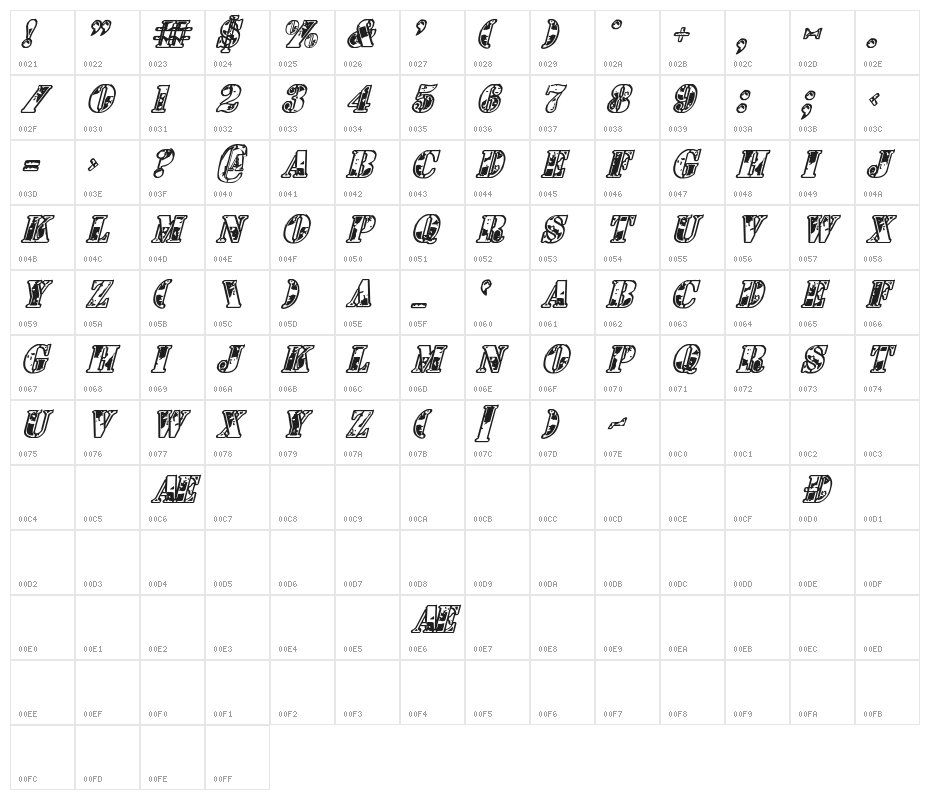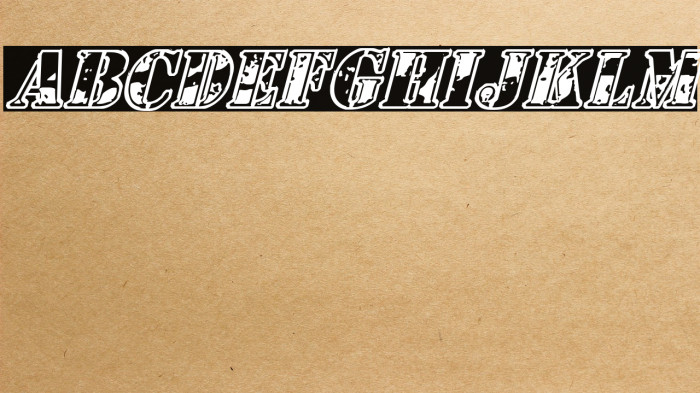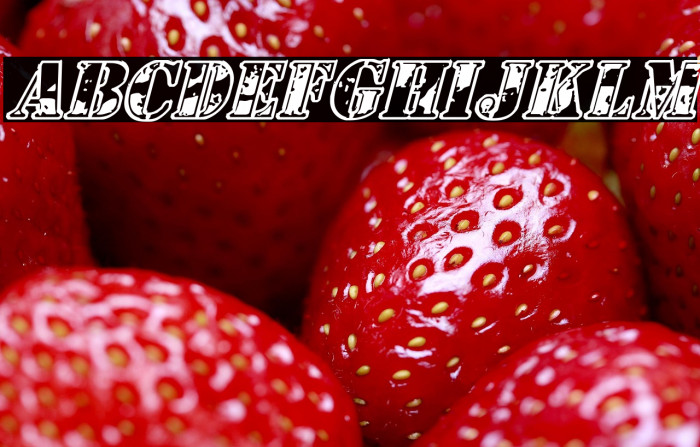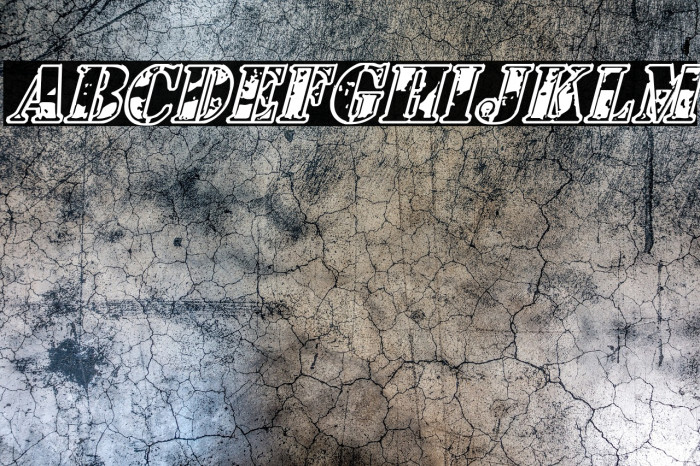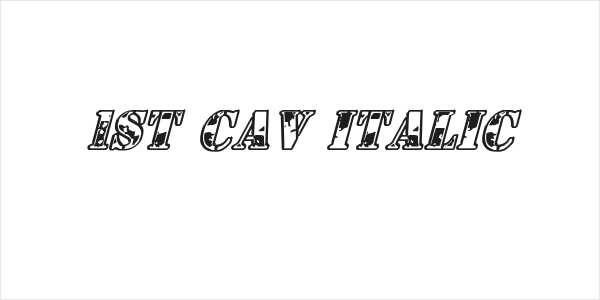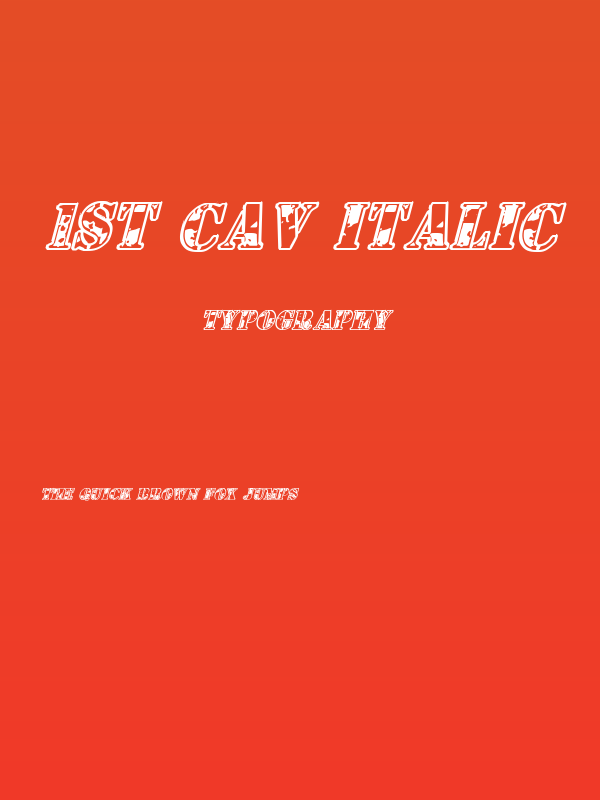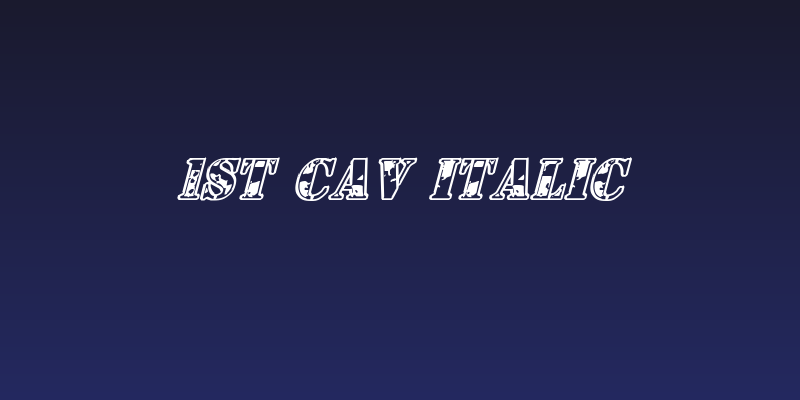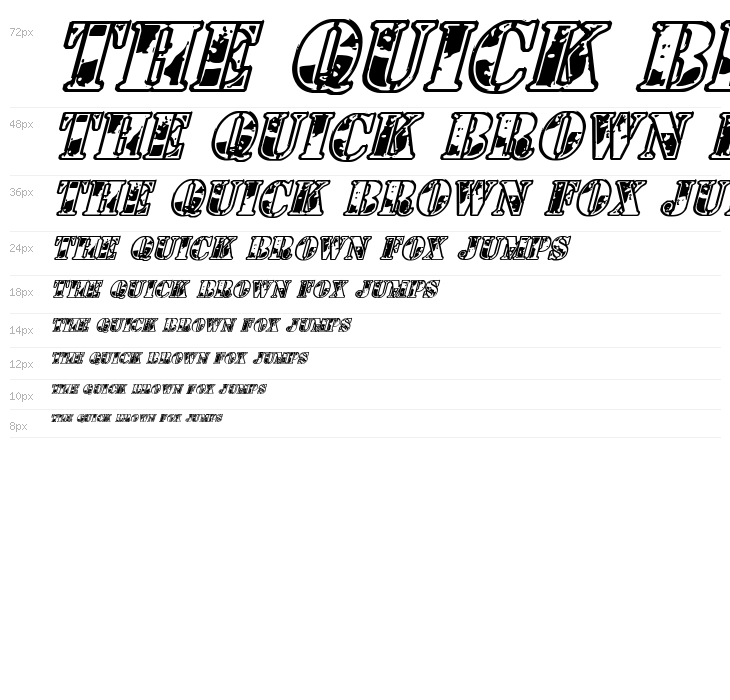
1st Cav Italic Font
1st Cav Italic Description
This font features a bold, italicized style with a distressed, grunge texture that gives it a rugged and edgy appearance. The characters are outlined with a thick stroke, and the interior of each letter is filled with a rough, uneven pattern that adds a sense of depth and dynamism. The uppercase and lowercase letters maintain a consistent design, with the uppercase letters being slightly larger and more pronounced. The numbers and special characters follow the same stylistic approach, ensuring a cohesive look across all elements. This font's unique blend of boldness and texture makes it stand out, perfect for projects that require a strong visual impact.
| Proposed Projects | Ideal for posters, album covers, branding for edgy products, or any design needing a bold statement. |